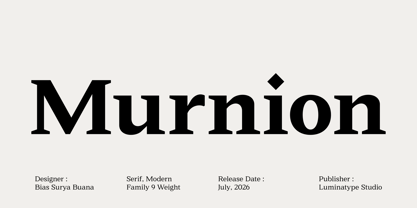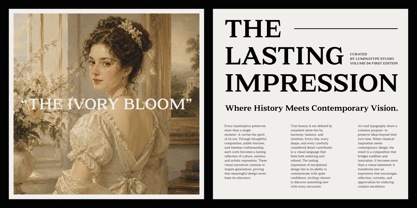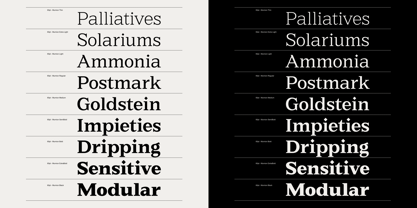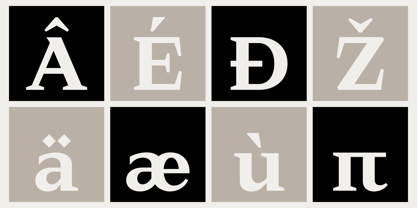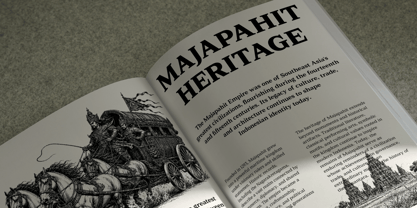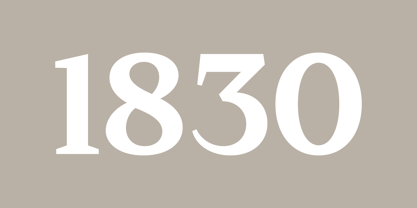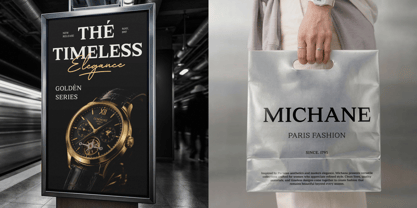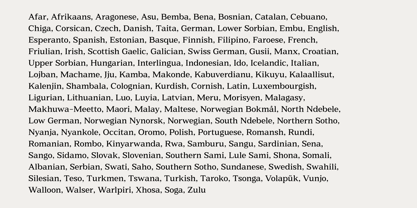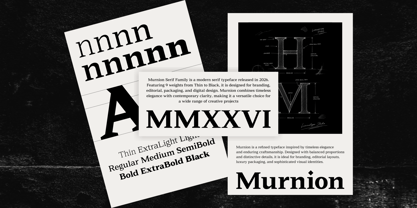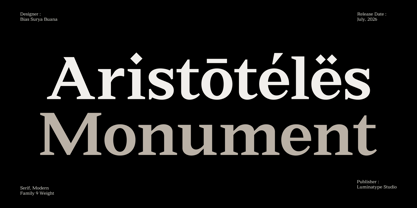
Murnion
by Luminatype Studio
The Murnion Font Family was designed by Bias Surya Buana and published by Luminatype Studio. Murnion contains 9 styles and family package options. More about this family
Murnion is a refined contemporary serif family by Luminatype Studio, thoughtfully crafted to blend timeless elegance with modern versatility. Featuring 9 carefully balanced weights, from Thin to Black, Murnion offers a comprehensive typographic system that adapts seamlessly across a wide range of creative applications. Each weight is designed with meticulous attention to proportion, contrast, and readability, delivering a sophisticated appearance suitable for delicate editorial layouts as well as bold visual statements. Whether utilized for luxury branding, visual identities, logos, editorial design, magazines, books, packaging, advertising, websites, social media, presentations, signage, or premium marketing materials, Murnion provides the flexibility to create cohesive and memorable designs. Its balanced letterforms ensure exceptional clarity at both display and text sizes, making it ideal for everything from elegant headlines to refined body copy. With a complete range of weights, Murnion empowers designers to establish clear hierarchy, consistency, and visual harmony throughout any project. By blending classic serif characteristics with contemporary refinement, it stands out as an ideal choice for creative professionals seeking a typeface that is both expressive and highly functional across print and digital media.
Designers: Bias Surya Buana
Foundry: Luminatype Studio